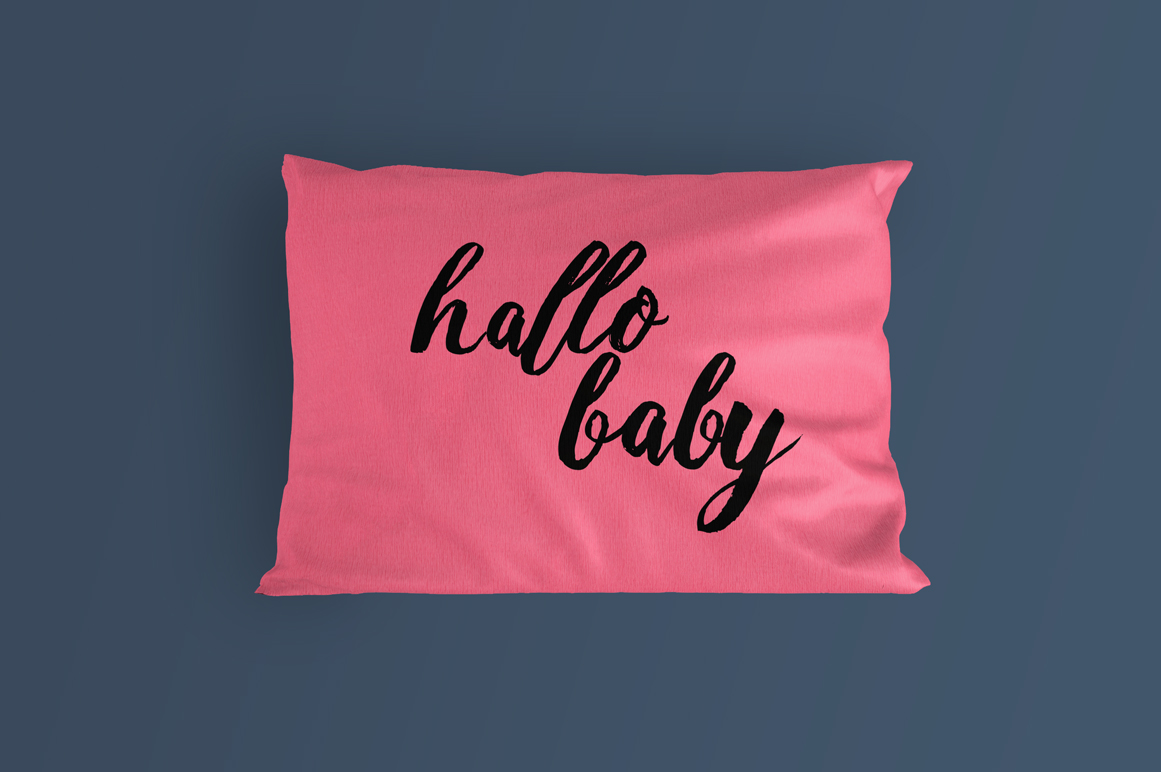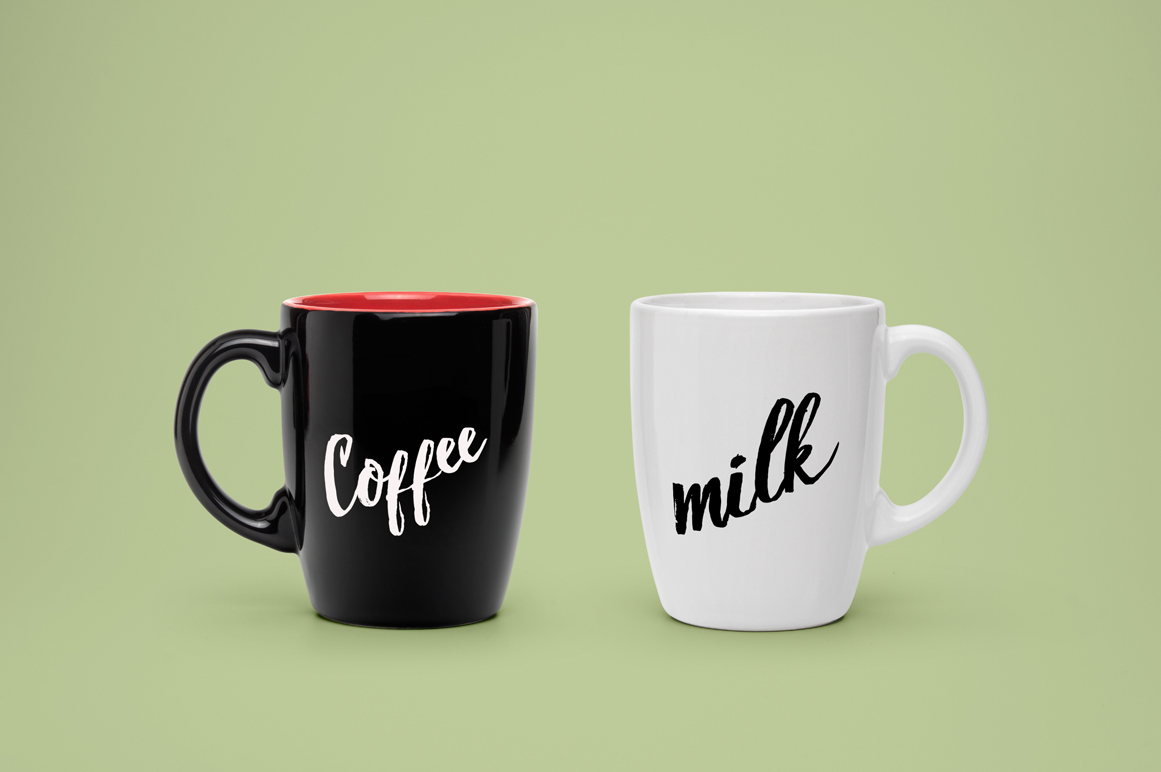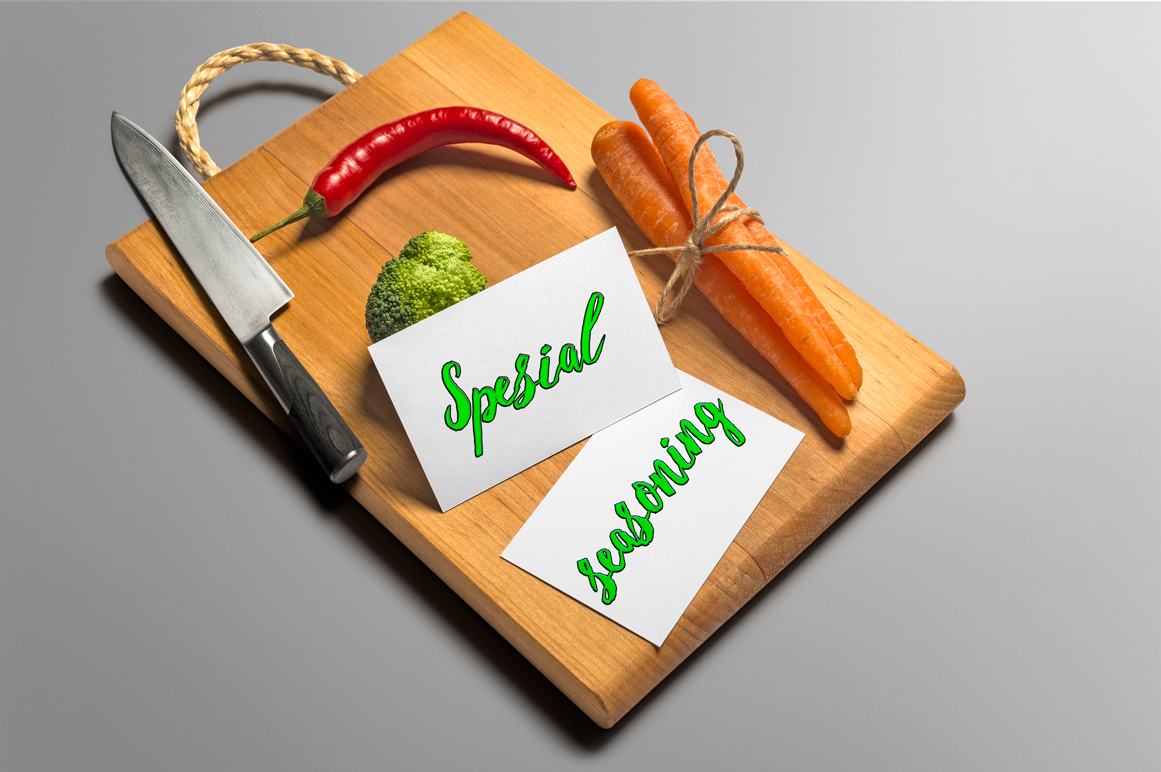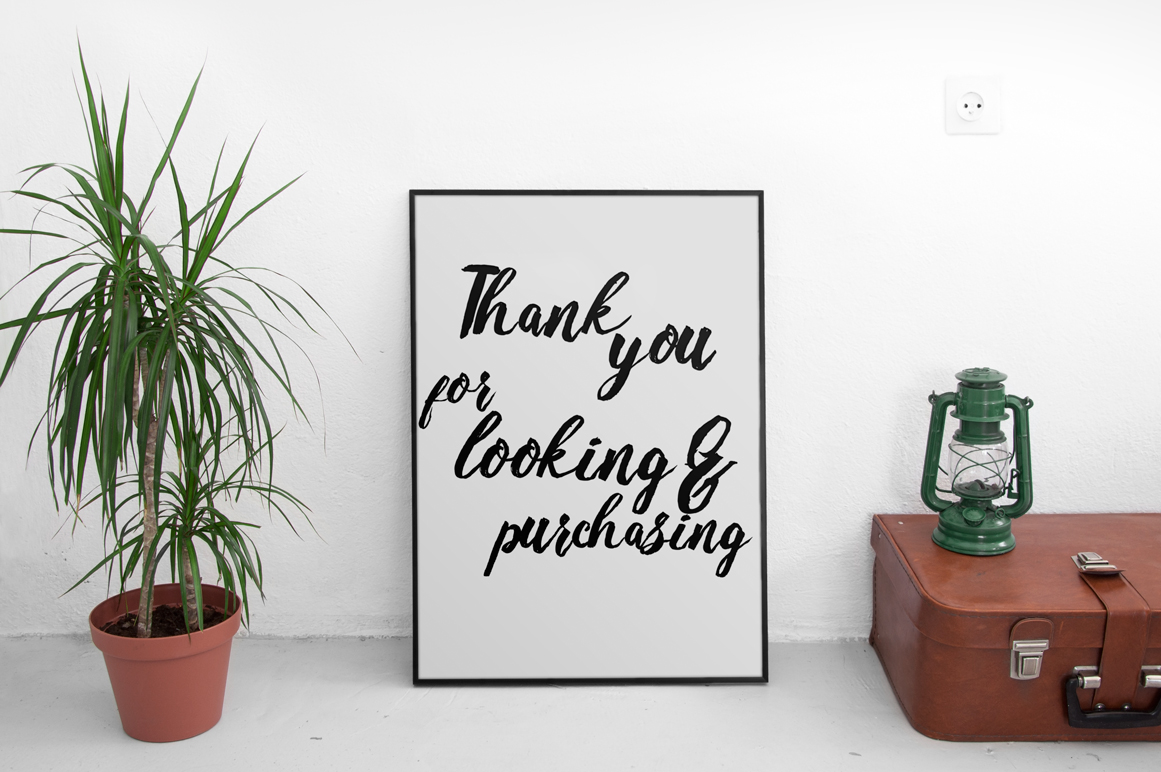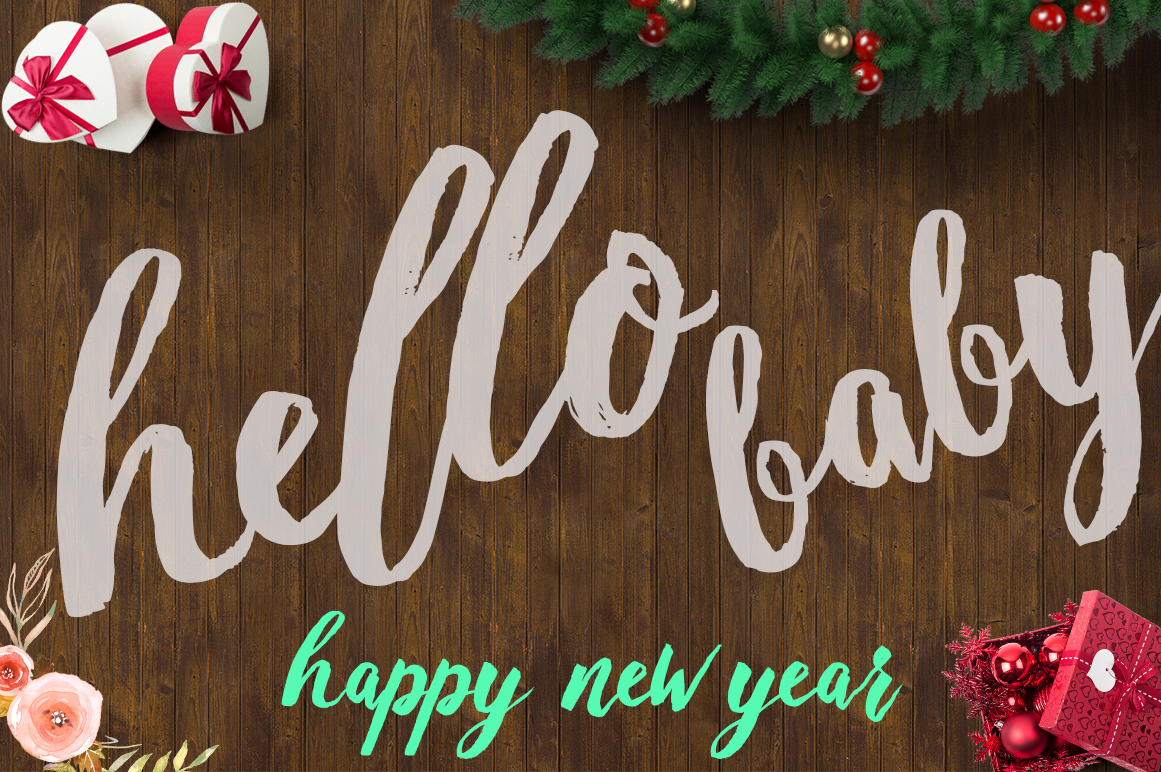
Introduction to Montellia Font Font
Fonts play a crucial role in design, and the Montellia Font font is a typeface that brings both character and versatility to any project. Whether you’re working on a branding project, a website, or a print design, the Montellia Font font offers a unique style that can elevate your work.
Monetellia is a handwritten brush style font created by StudioRz.
Key Features of Montellia Font Font
Why Choose Montellia Font Font?
The Montellia Font font is more than just a typeface – it’s a design tool that helps you communicate your message with style and clarity. Its unique character set and versatile design make it suitable for a wide range of applications, from elegant invitations to bold headlines.
With its carefully crafted letterforms and balanced proportions, the Montellia Font font ensures readability and visual appeal across all mediums.
What makes Montellia Font font special?
The Montellia Font font stands out with its unique design, exceptional readability, and versatility across various design applications.